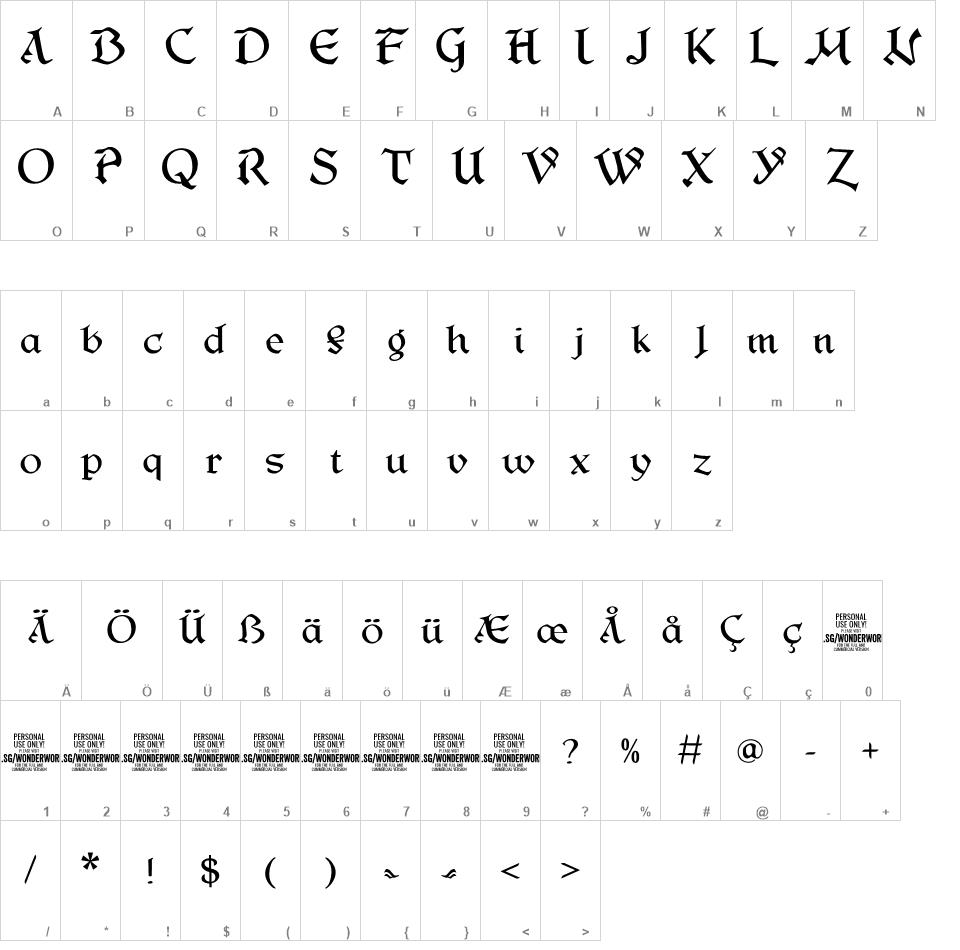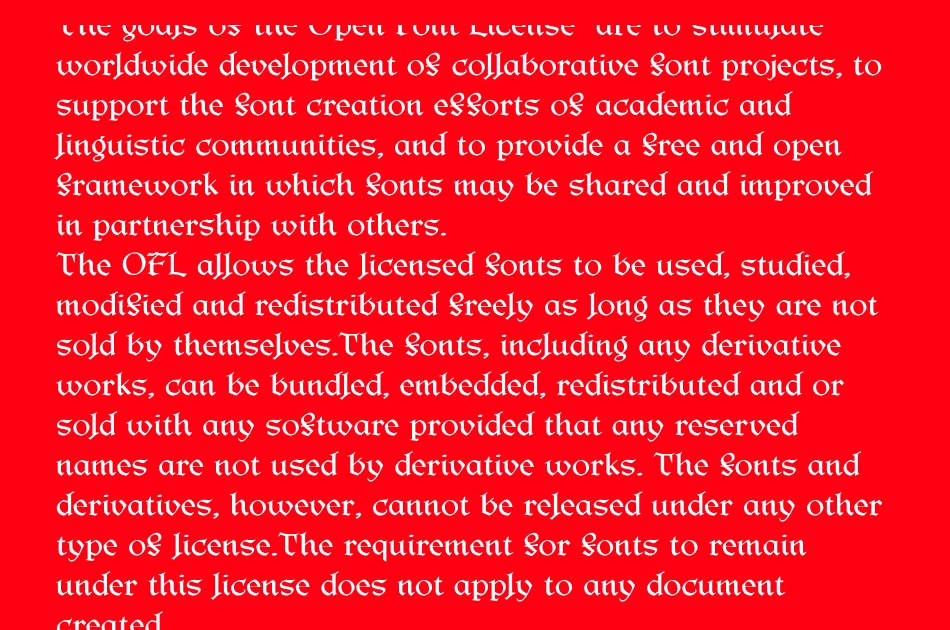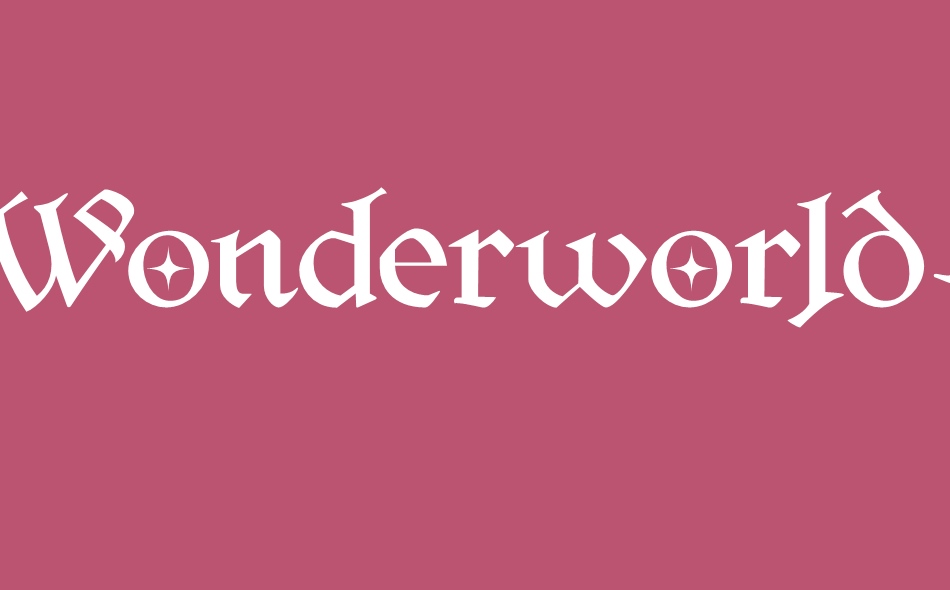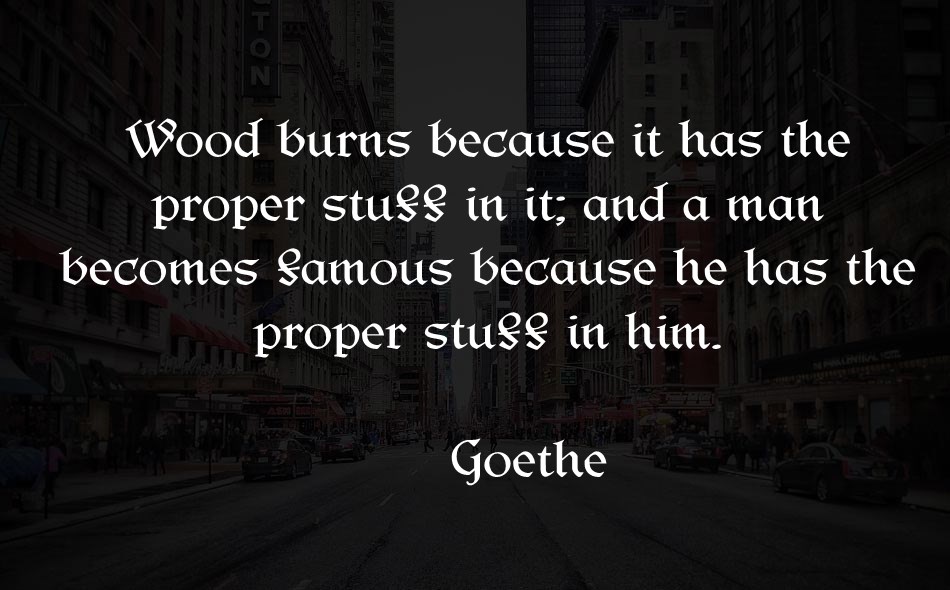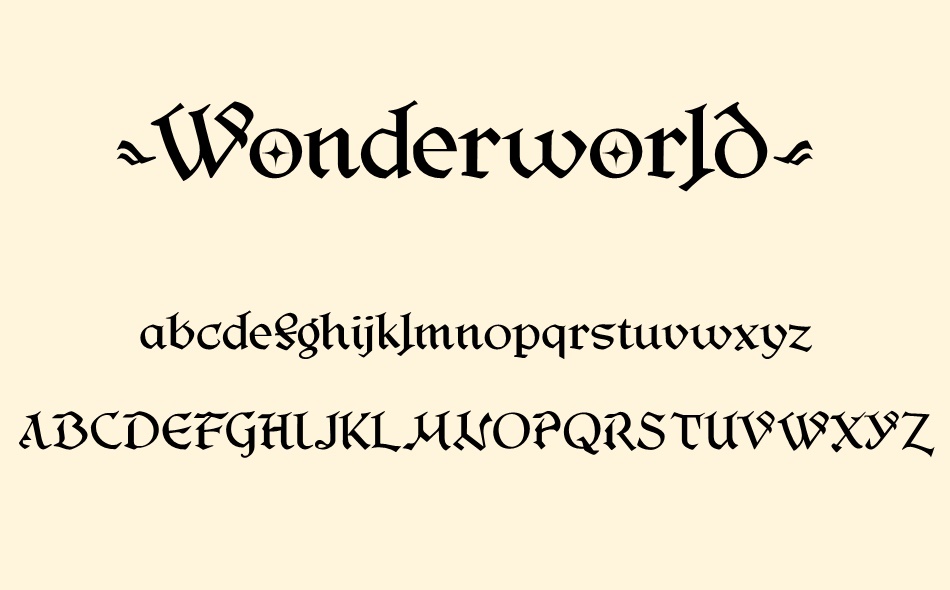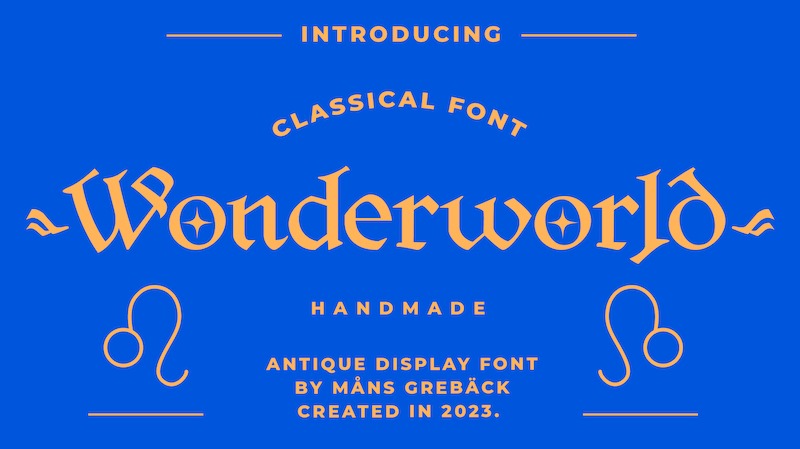
Use [] or {} to make decorations.
Example: [Lovely]
Wonderworld is an antique calligraphy typeface.
This medieval font brings you back to the magic times of stories about knights and kings, with thin fractur letterforms and sharp edges.
Use it for a blackletter logotype or headline to give your work that genuine Middle Ages look.
Use [] or {} to make decorations. Example: [Lovely]
The Wonderworld family consists of four high-quality fonts: Regular, Italic, Bold and Bold Italic
The font is built with advanced OpenType functionality and has a guaranteed top-notch quality, containing stylistic and contextual alternates, ligatures and more features; all to give you full control and customizability. It has extensive lingual support, covering all Latin-based languages, from Northern Europe to South Africa, from America to South-East Asia. It contains all characters and symbols you'll ever need, including all punctuation and numbers.